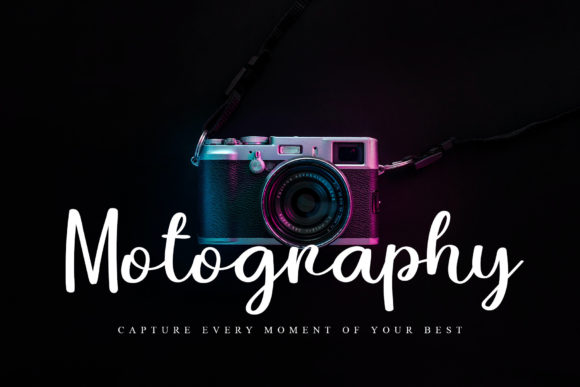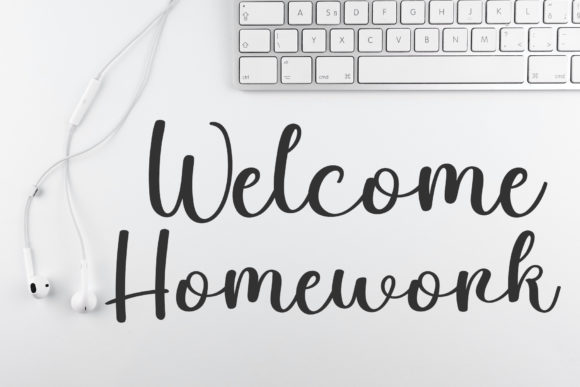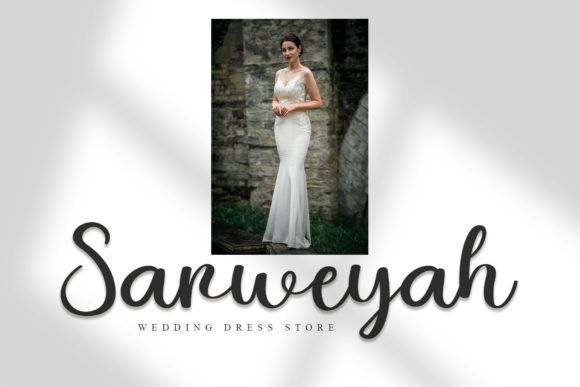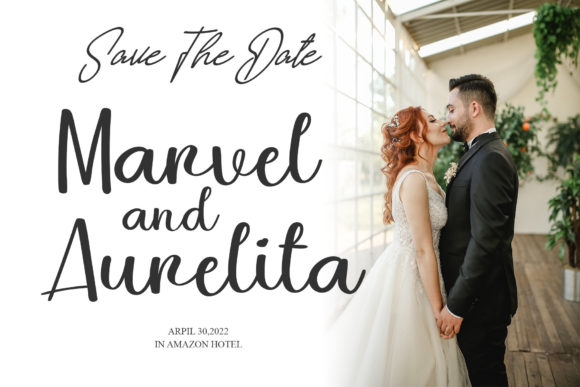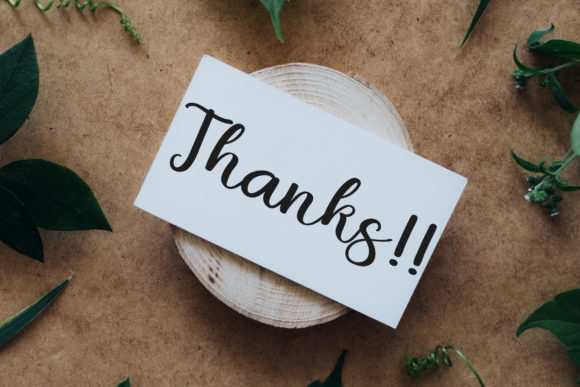
Introduction to Protect Font
As a designer, have you ever found yourself pouring your heart and soul into a creative project, only to have it feel like something’s missing? You’ve crafted the perfect layout, carefully selected the right colors, and finally, you need the perfect font to tie everything together. That’s where Protect Font comes in – a stunning, elegant handwritten font that adds a loving touch to any design project.
Protect Font
- Unique characteristics include its clean and modern design, making it perfect for a wide range of creative projects, from logos to typography-based art.
Honest Review: Protect Font
I recently stumbled upon the Protect Font, and I’m excited to share my honest thoughts about this design resource. As a designer, I’m always on the lookout for high-quality fonts that can elevate my creative projects.
One of the things that works well about the Protect Font is its clean and modern design. The font is highly legible, even at small sizes, making it perfect for digital projects. The transparent background option is also a plus, as it allows for seamless integration with any design element.
- Only available in a limited range of weights and styles
- May not be suitable for print projects due to its digital design
- Some users may find the font too modern or trendy
Protect Font
The Protect Font is a valuable design resource for any creative project. It can be used to create eye-catching titles, headings, and body text for a variety of applications, including brochures, posters, and social media graphics.
To get the most out of the Protect Font, use it in combination with other design elements, such as images and graphics, to create a visually appealing design. You can also experiment with different font sizes, colors, and styles to achieve the desired effect.